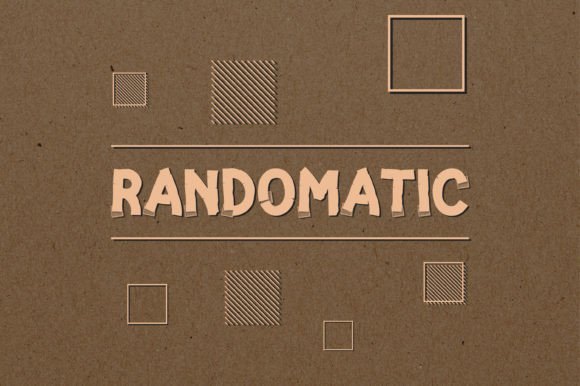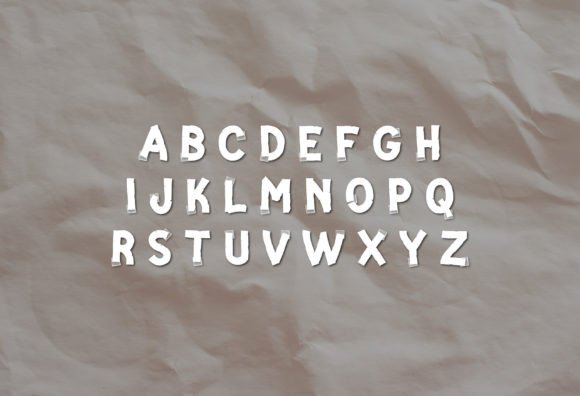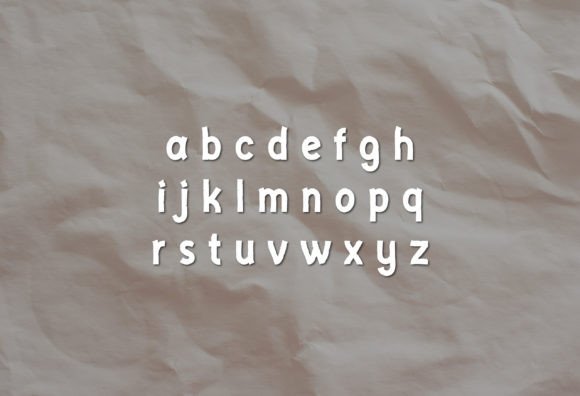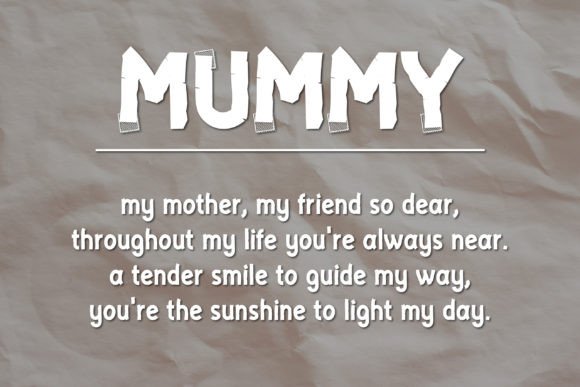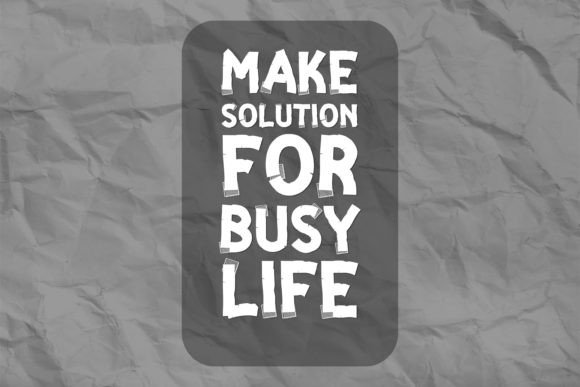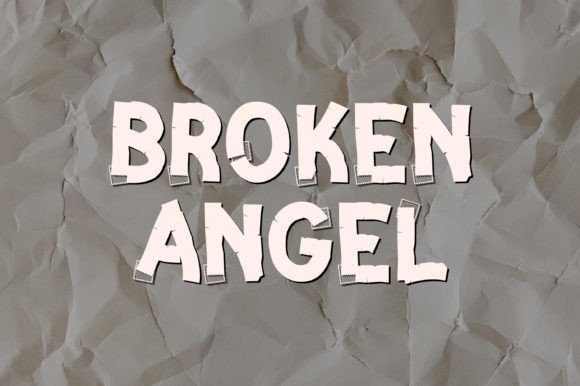
Introduction to Randomatic Font
Have you ever been brainstorming a creative project and suddenly, a burst of inspiration hits you? The ideas start flowing, and you envision the perfect visual representation – bold, eye-catching, and unique. For designers, this moment is invaluable, and the right font can make all the difference. That’s where the Randomatic Font comes in – a high-quality, decorative font that adds a touch of whimsy to any design.
With its comic vibe and torn paper texture, the Randomatic Font is perfect for designers looking to create dynamic book covers, imaginative movie titles, or eye-catching comic headings. Its free download makes it an accessible design resource for creatives of all levels. Plus, its transparent background allows for seamless integration into any project. Whether you’re working on a high-end design or a personal creative project, the Randomatic Font is a valuable addition to your design arsenal.
Key Features of Randomatic Font
- Unique, hand-drawn aesthetic with a transparent background, allowing for versatile use in various designs.
- Designed for use in digital and print media, including logos, branding, and advertising materials.
Honest Review: Randomatic Font
I recently stumbled upon the Randomatic Font while searching for a unique design resource for a creative project. The font is available as a free download, which was a major plus in my book. Upon closer inspection, I was impressed by the high quality of the font, with crisp lines and a clear, legible design.
- What works well: ✨ The Randomatic Font is incredibly versatile and can be used for a wide range of creative projects, from logos to digital art. I also appreciated the transparent background, which made it easy to layer over other design elements.
- What doesn’t: ⚠️ While the font is free to download, it’s not suitable for commercial use without proper licensing. Additionally, the font’s randomness can sometimes make it difficult to read, especially in smaller font sizes.
Overall, I’m impressed with the Randomatic Font as a design resource. It’s a great option for personal projects or those on a tight budget. However, I would recommend exploring other options if you need a font for commercial use or require more consistency in your design.
Randomatic Font: A High-Quality Design Resource
The Randomatic Font is a free download that offers a high-quality design resource for creative projects. With a transparent background, you can easily incorporate it into your designs without any distractions. This versatile font is perfect for adding a unique touch to your projects.
Tips for Getting the Most Out of Randomatic Font
To get the most out of the Randomatic Font, use it in bold or italic styles to add emphasis to your text. You can also experiment with different font sizes and colors to create a visually appealing design.
Common Use Cases for Randomatic Font
The Randomatic Font is ideal for use in creative projects such as:
- Posters
Alternatives to Randomatic Font
Comic Sans MS is a high-quality font that is perfect for creative projects that require a playful and casual tone. It’s a free download and is commonly used in advertising and marketing materials. When to use: For informal and friendly designs, such as social media posts, blog headers, and children’s educational materials. Comparison to Randomatic Font: While both fonts are playful, Comic Sans MS is more cursive and less chaotic than Randomatic Font.
Great Vibes is a free, high-quality font that is ideal for design projects that require a fun and energetic feel. It’s a great resource for designers who want to add a touch of whimsy to their creative projects. When to use: For projects that require a lively and upbeat tone, such as event posters, social media graphics, and product packaging. Comparison to Randomatic Font: Great Vibes is more stylized and has a more consistent feel than Randomatic Font, making it a great choice for projects that require a high level of design control.
Pacifico is a high-quality font that is perfect for design projects that require a sophisticated and elegant tone. It’s a free download and is commonly used in branding and packaging materials. When to use: For projects that require a high level of sophistication, such as luxury product packaging, high-end branding, and elegant invitations. Comparison to Randomatic Font: Pacifico is more refined and has a more transparent background than Randomatic Font, making it a great choice for projects that require a high level of design sophistication.